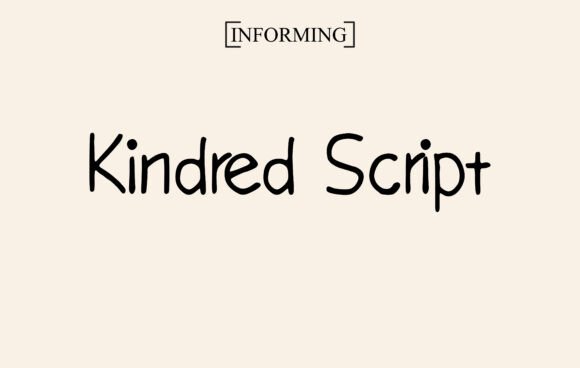
Kindred Script Font: The Perfect Choice for Adding a Touch of Kindness and Simplicity to Your Designs
The Kindred Script Font is a beautiful, handwritten font that is sure to add a touch of warmth and personality to any design project. Its friendly, playful form makes it ideal for a wide range of applications, from kids’ projects and devotionals to greeting cards and more. In this article, we’ll take a closer look at the Kindred Script Font and explore its many uses and benefits.
What is Kindred Script Font?
Kindred Script Font is a carefully crafted, handwritten font that is designed to feel like a note written by hand from someone dear. Its unique, cursive style is characterized by flowing lines, gentle curves, and a warm, inviting feel. The font is highly legible and easy to read, making it perfect for use in a variety of design projects.
The Characteristics of Kindred Script Font
So, what makes Kindred Script Font so special? Here are just a few of its key characteristics:
- Handwritten feel: Kindred Script Font has a warm, handwritten feel that makes it perfect for designs that need a personal touch.
- Playful and friendly: The font’s playful, cursive style is highly approachable and friendly, making it ideal for kids’ projects and other designs that need to appeal to a younger audience.
- Highly legible: Despite its handwritten feel, Kindred Script Font is highly legible and easy to read, even at small sizes.
- Versatile: The font is highly versatile and can be used in a wide range of design projects, from greeting cards and devotionals to posters and more.
Uses for Kindred Script Font
So, what can you use Kindred Script Font for? Here are just a few ideas to get you started:
Kids’ Projects
Kindred Script Font is perfect for kids’ projects, such as worksheets, activity sheets, and other educational materials. Its playful, friendly style is sure to appeal to kids and make learning fun.
Devotionals
The font’s warm, inviting feel makes it ideal for devotionals and other spiritual materials. Use it to add a personal touch to your designs and make them feel more approachable and relatable.
Greeting Cards
Kindred Script Font is a great choice for greeting cards and other personal correspondence. Its handwritten feel makes it perfect for expressing heartfelt sentiments and making your cards feel more special.
Posters and Flyers
The font’s playful, cursive style makes it a great choice for posters and flyers that need to grab attention and appeal to a wide audience. Use it to add a touch of personality to your designs and make them stand out.
Benefits of Using Kindred Script Font
So, why should you choose Kindred Script Font for your design projects? Here are just a few benefits to consider:
- Emotional connection: The font’s handwritten feel and playful style can help you create an emotional connection with your audience and make your designs feel more personal and relatable.
- Flexibility: Kindred Script Font is highly versatile and can be used in a wide range of design projects, from kids’ materials to greeting cards and more.
- Ease of use: The font is highly legible and easy to read, making it perfect for designs that need to communicate a message clearly and effectively.
- Unique style: Kindred Script Font has a unique, cursive style that sets it apart from other fonts and makes it perfect for designs that need to stand out.
Tips for Using Kindred Script Font
Here are a few tips to keep in mind when using Kindred Script Font in your design projects:
Use it sparingly
While Kindred Script Font is perfect for adding a personal touch to your designs, it’s best to use it sparingly. Too much of the font can be overwhelming and make your designs feel cluttered.
Pair it with other fonts
Kindred Script Font pairs well with other fonts, such as sans-serif fonts and bold fonts. Experiment with different pairings to find the one that works best for your design.
Experiment with colors
The font’s playful style makes it perfect for use with bright, bold colors. Experiment with different color schemes to find the one that works best for your design.
Kindred Script Font is a beautiful, handwritten font that is perfect for adding a touch of kindness and simplicity to your design projects. Its friendly, playful form makes it ideal for kids’ projects, devotionals, greeting cards, and more. With its highly legible style and versatile uses, Kindred Script Font is a great choice for designers who want to create emotional connections with their audiences and make their designs feel more personal and relatable.